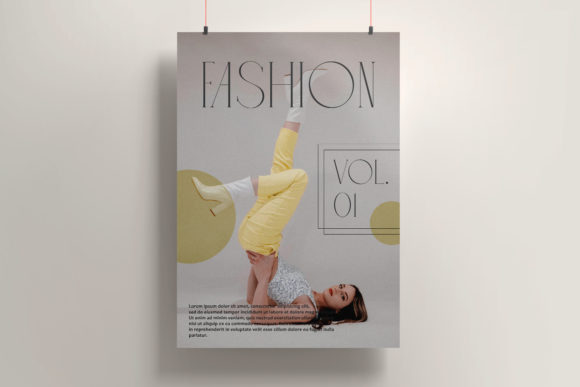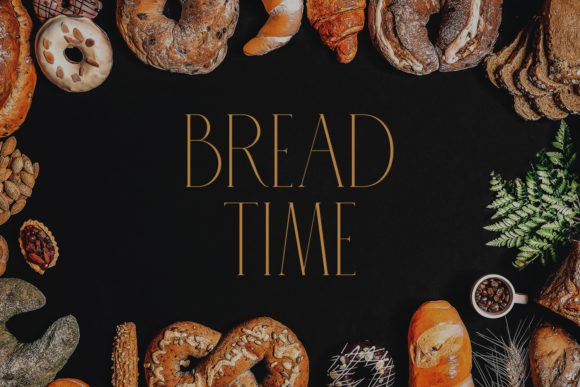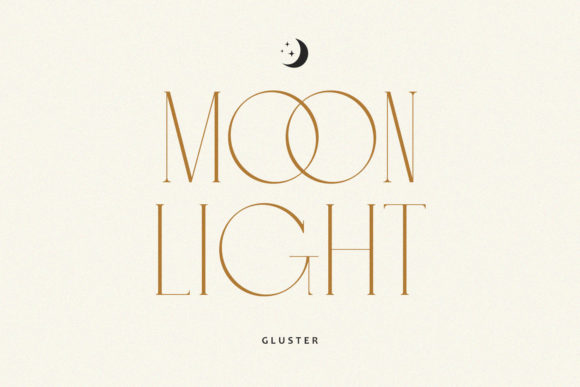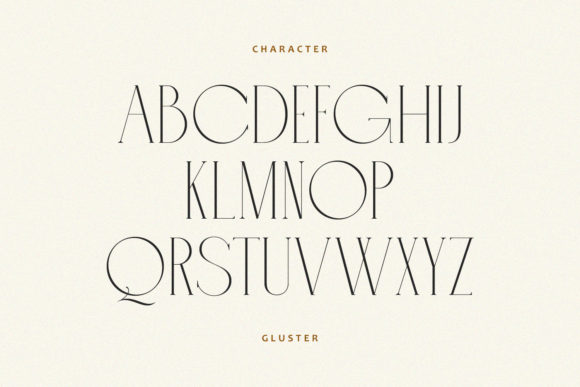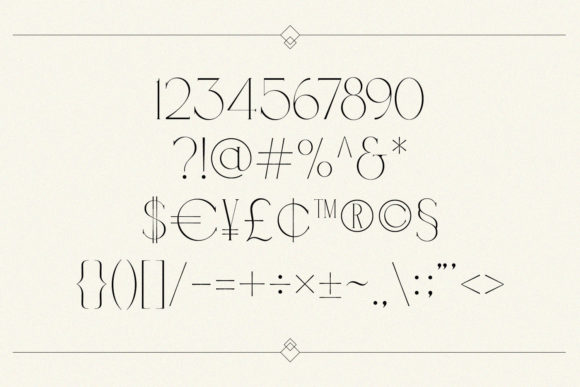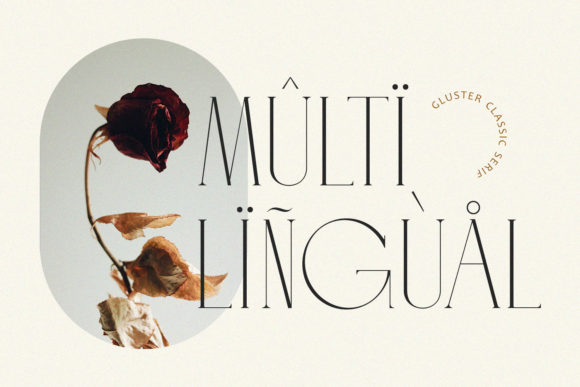
Introduction to Gluster Font
Gluster is a thin lettered and tall serif font.
Fall for its ravishing style and use it to create gorgeous wedding invitations, beautiful stationary art, eye-catching social media posts, and much more .
Gluster Font offers exceptional quality and versatility, making it a valuable addition to your design toolkit. Whether you’re creating for personal projects or commercial use, Gluster Font delivers professional results.